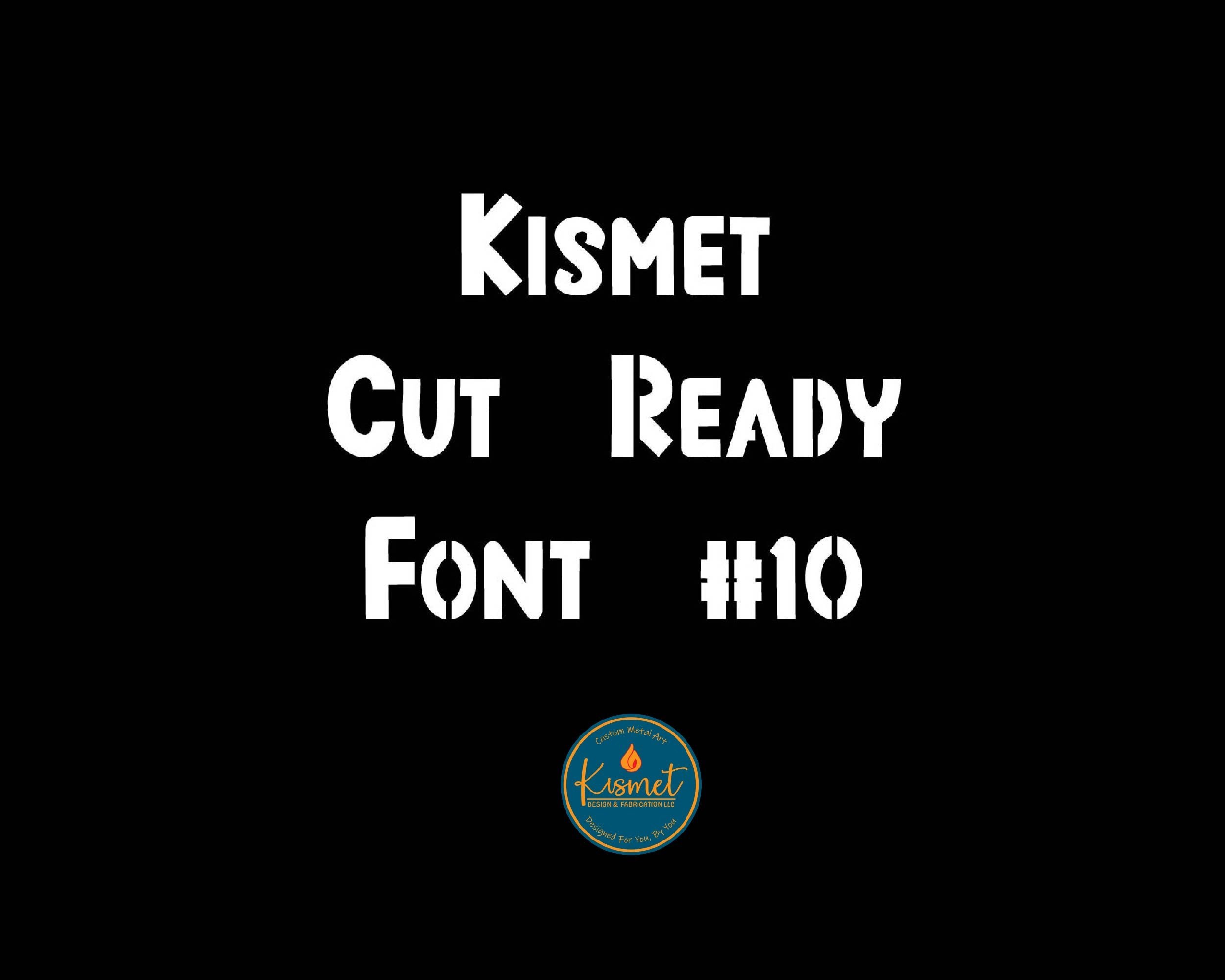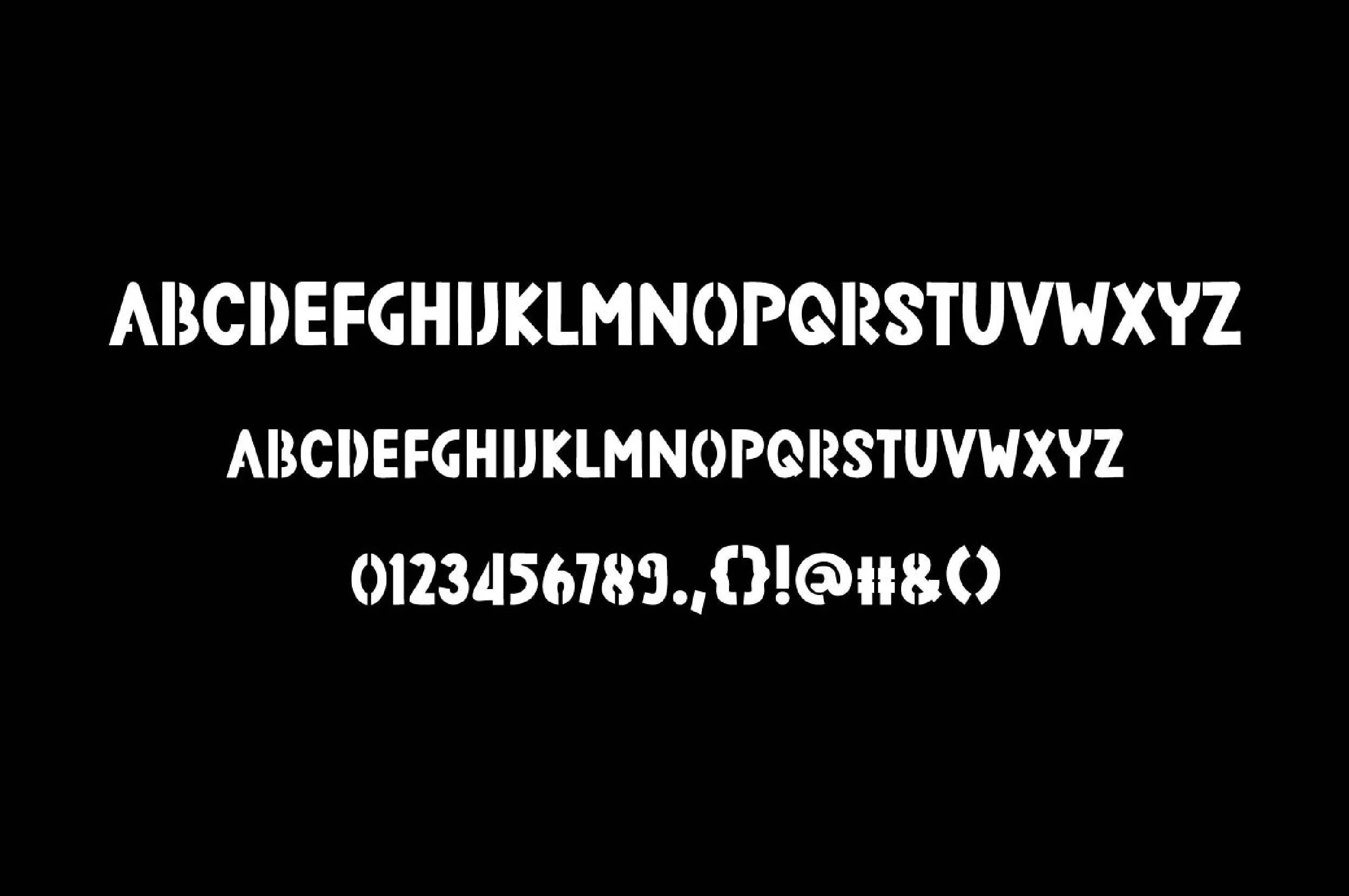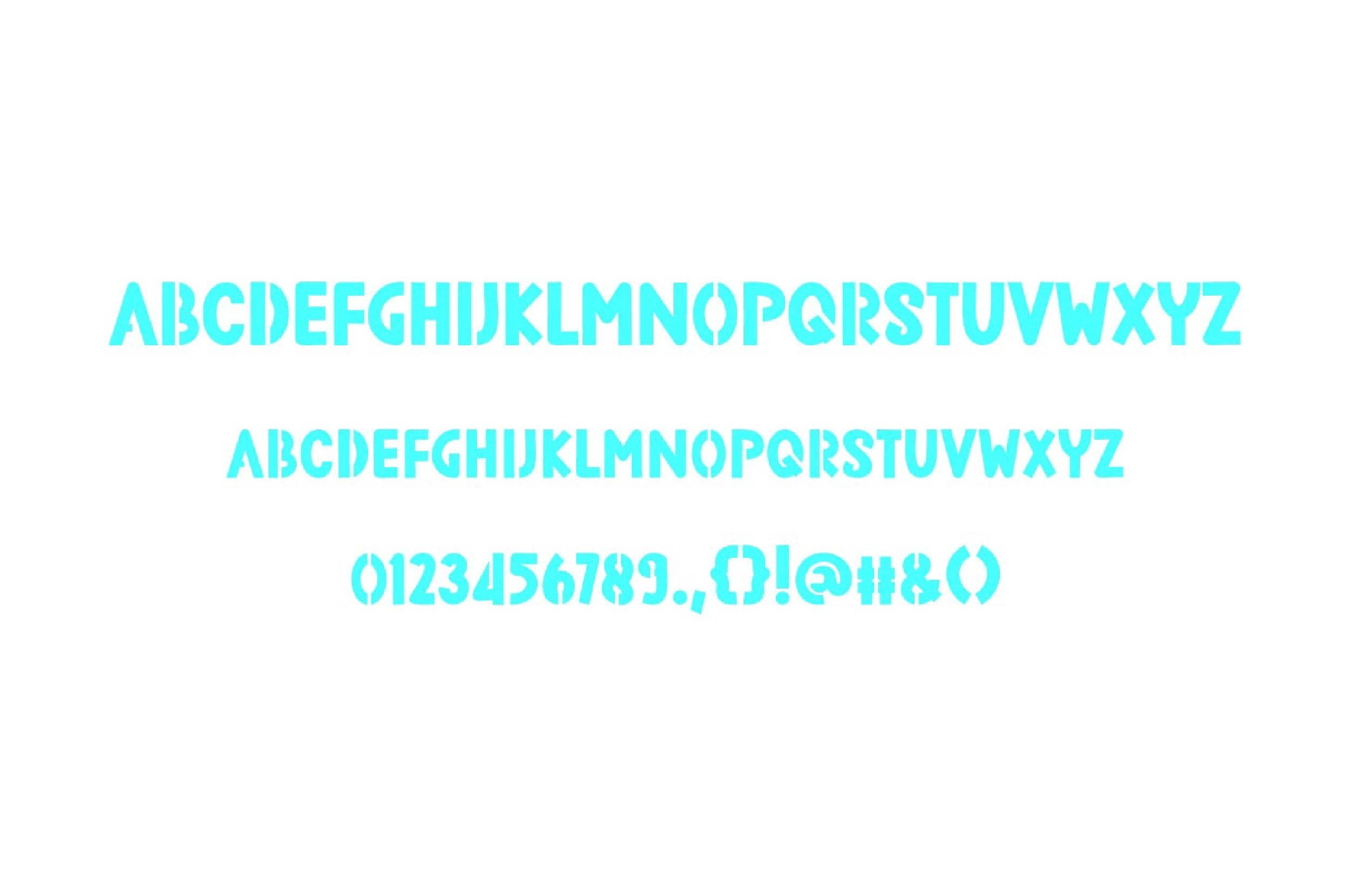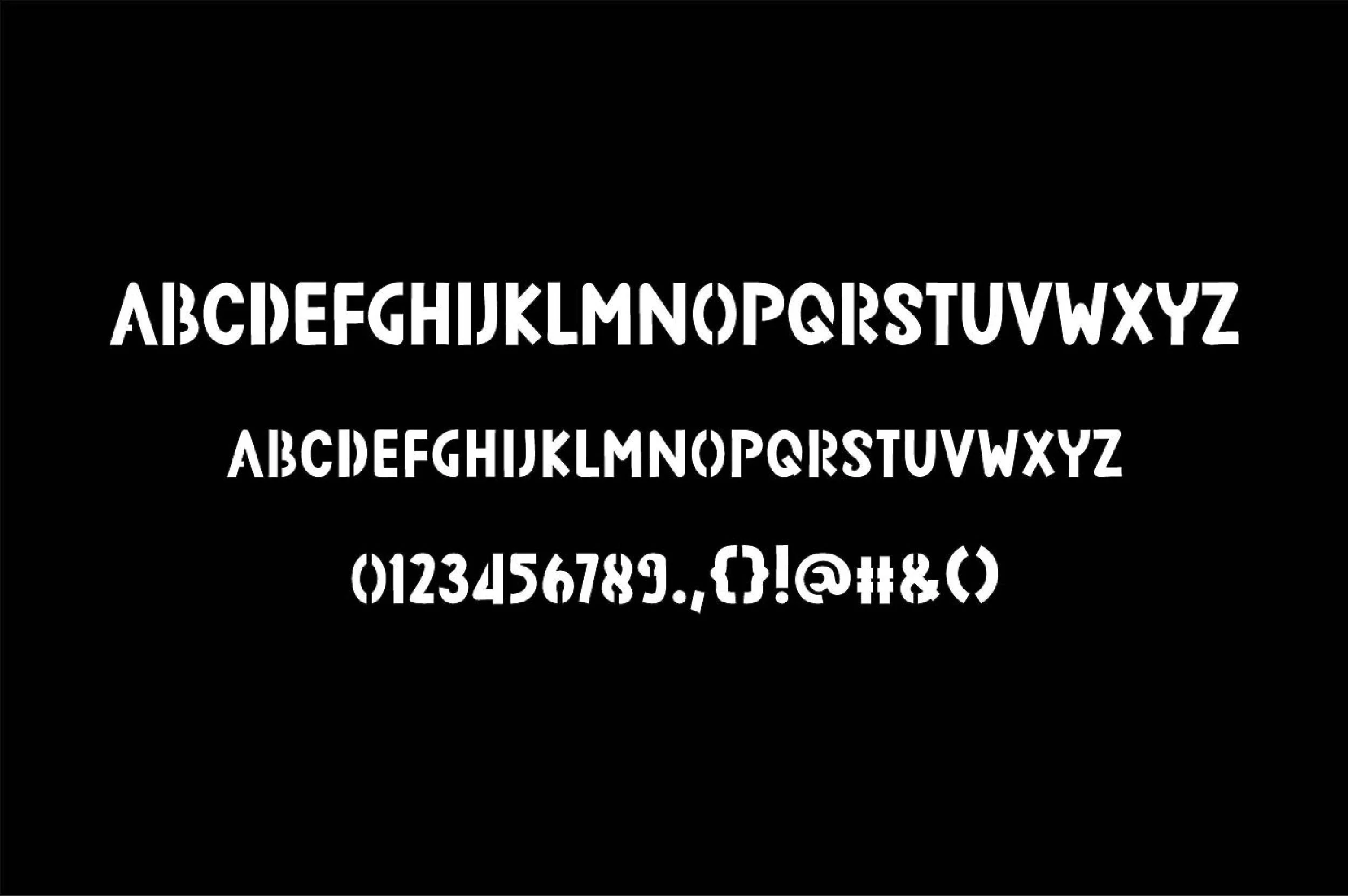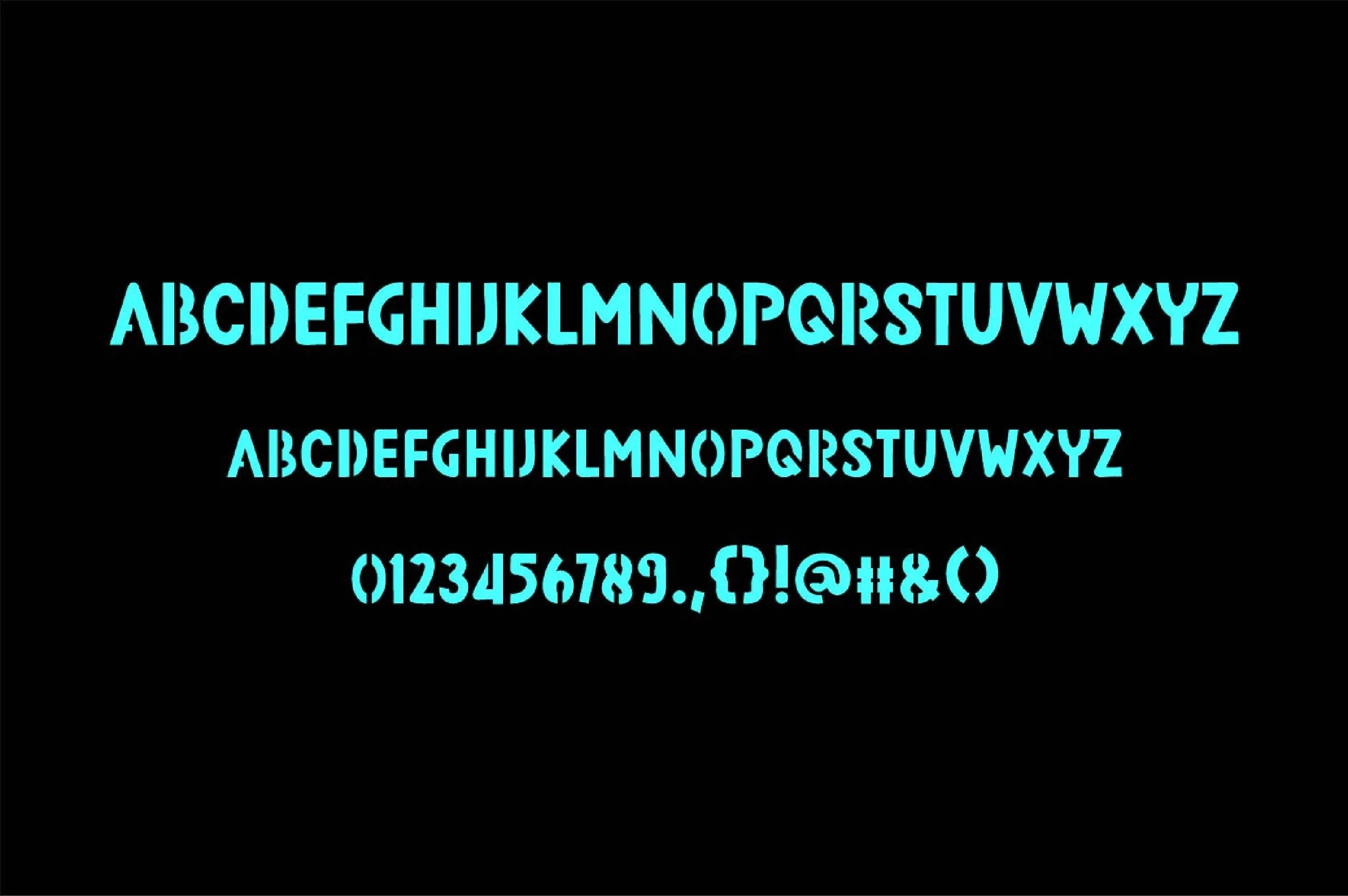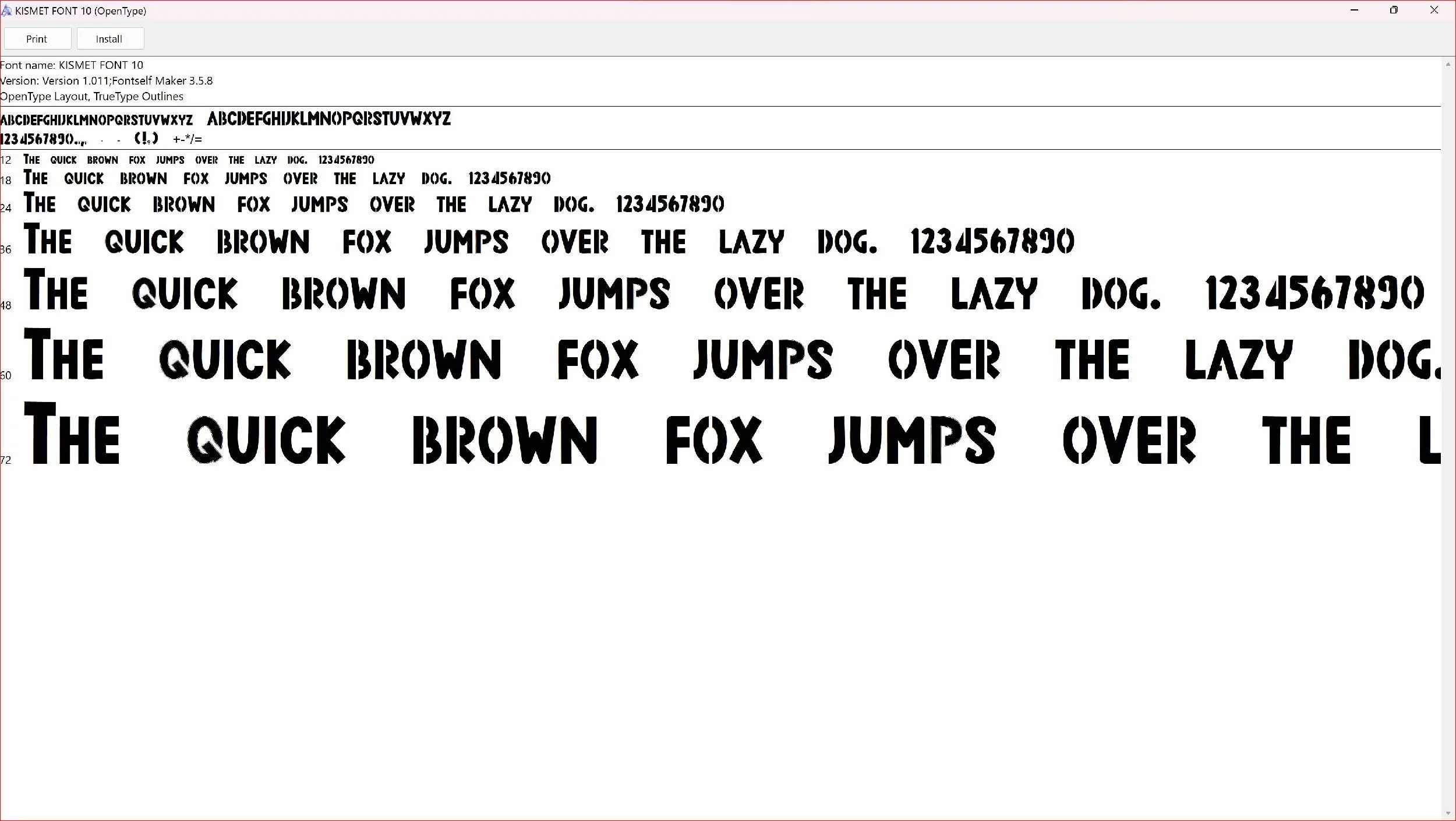
Stencil Font SVG, Serif & Sans Font, CNC Plasma, Cricut (Digital Download)
Introducing the latest in our stencil font ttf collection, our bridged font dxf files for cnc cutting digital download . This script font includes clean cutting png svg jpg and dxf cut files for a full collection of our sans font in the files format to suit your needs. These versatile serif font svg files for cricut make beautiful files for laser and are will be the perfect addition to your svg designs.
Hand drawn in Adobe Illustrator